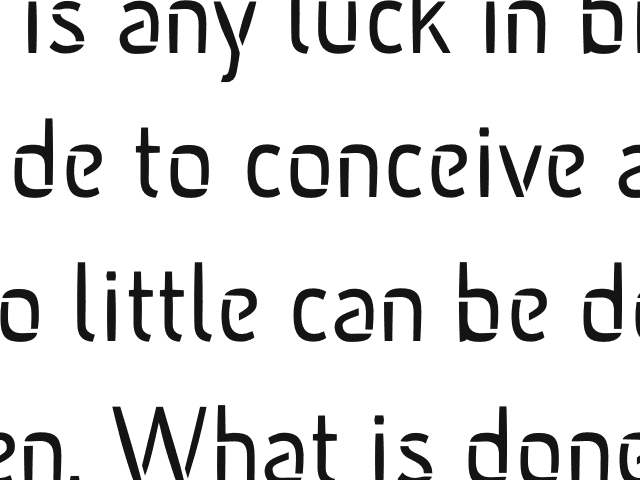
![]() day 1 : day 2 : day 3 : day 4   final result LED-group : Biggest group : Face-the-light group ![]() Renaissance to Rene-Sans. It really took some work but in the end we made it. And it works too! The first idea was about the ideology of Renaissance, to bring light to the dark ages. Light is not always visible. It can also be an inner light, the idea of light in an object. The font making process with a group of ten or so people turned out to be quite a challenge. The road from the beginning to the end was long and at times we thought we were completely lost. But we made it to the end. Kill your darlings! That was our way to go. Our thinking and sketches went from renaissance to gothic to 80's new romantics and back. But once we finalized our basic forms we really started to get things going.
To us the final result seems quite solid and with clear form language. The stencil style font served our final presentation well. Our advise to you is to face the light and just let loose! ps. If you wanna have a closer look on Rene-Sans, check this PDF. ![]() ![]() 2 comments so far: read comments